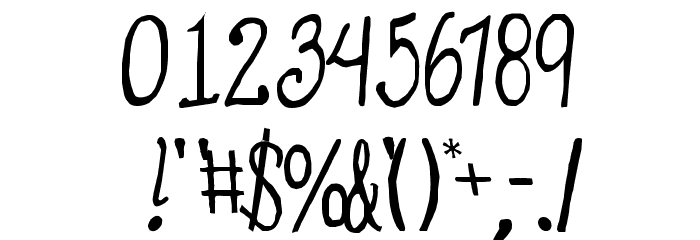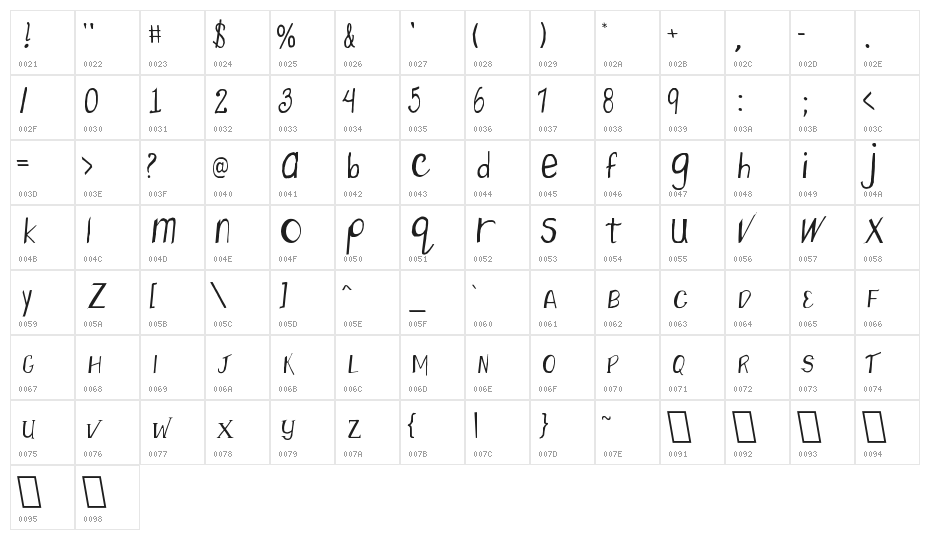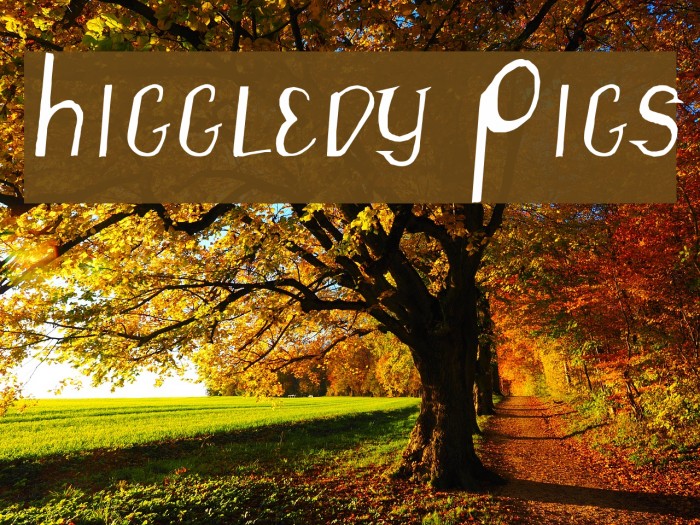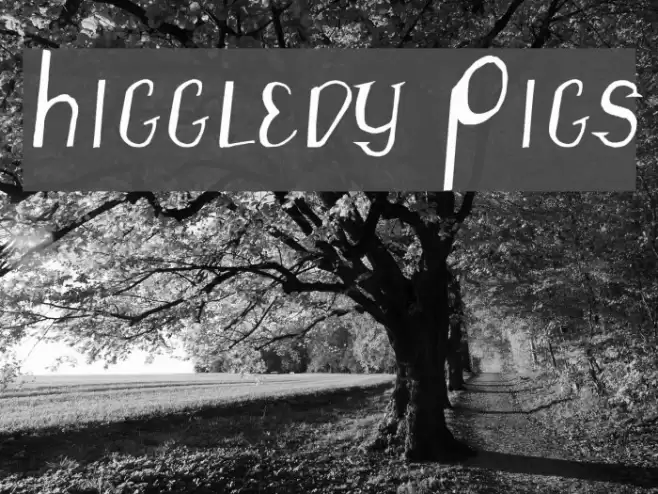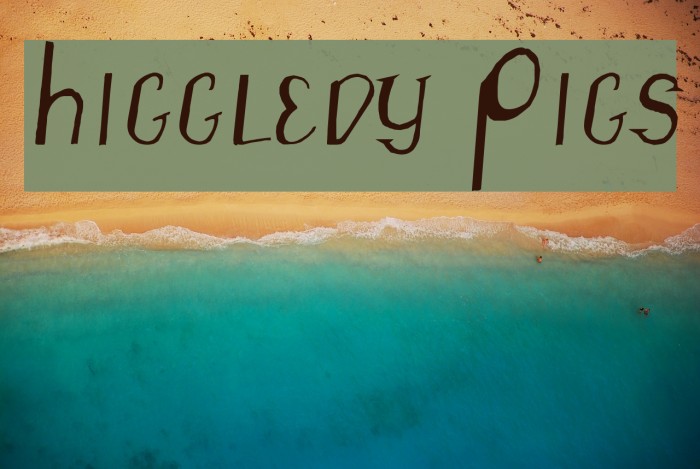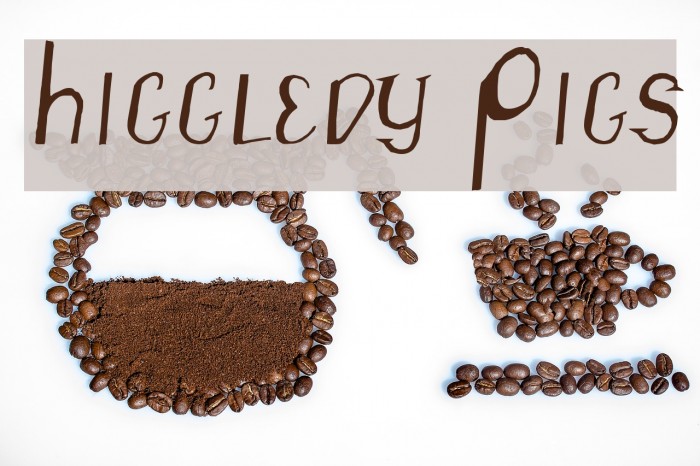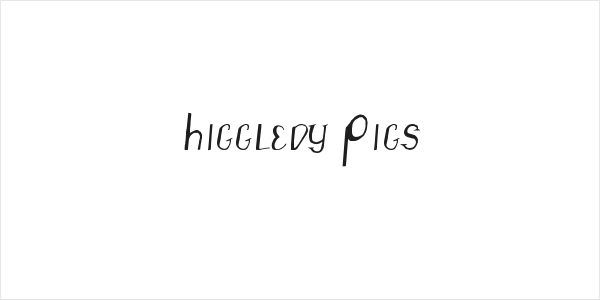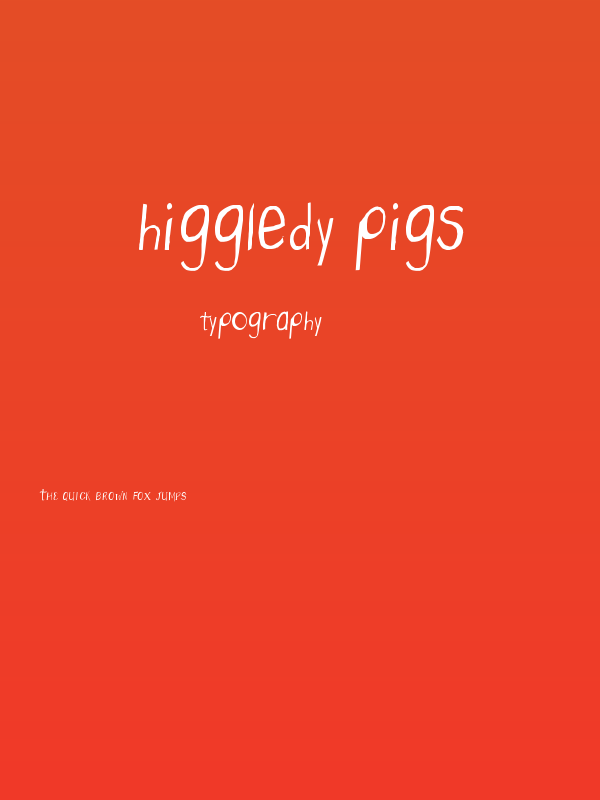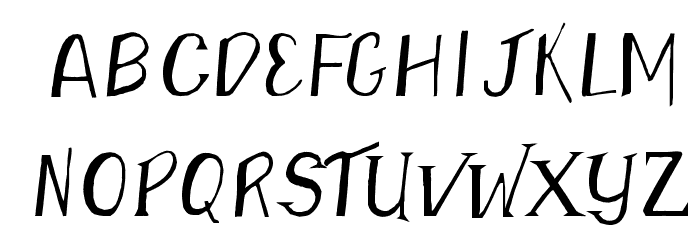
Higgledy Pigs Font
Higgledy Pigs Description
This font features a playful and whimsical design, characterized by its irregular and slightly tilted letterforms. The strokes vary in thickness, giving it a hand-drawn appearance that adds a touch of spontaneity and creativity. The uppercase and lowercase letters maintain a consistent style, with exaggerated curves and angles that enhance its quirky charm. The numbers and special characters follow the same playful aesthetic, making it suitable for projects that require a fun and informal touch. Its unique style makes it stand out, perfect for creative and artistic applications.
| Proposed Projects | Ideal for children's books, creative posters, playful branding, and artistic invitations. |